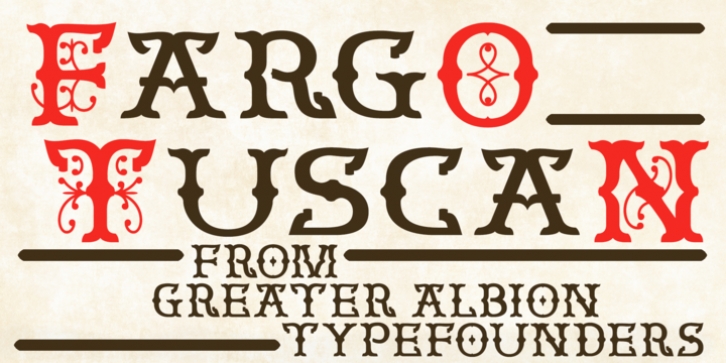
Fargo Tuscan is the first of seven typefaces exploring the decorative possibilities of the Tuscan letter form, all of which are releasing in 2017. It's the most European of the seven- it's a Mid-Victorian inspired display face which would have been (and is) at home on either side of the Atlantic, unlike some of the others in this batch of Tuscan faces which are distinctly ‘trans-Atlantic' (we know, that depends on your point of view but we are Greater ALBION Typefounders after all) in flavour. Fargo Tuscan is replete with decorative features, including Swash Capitals, alternate numeric forms and stylistic alternates ideal for the beginning and ending of words. Have some mid-Victorian mid-Atlantic fun with your next design project!